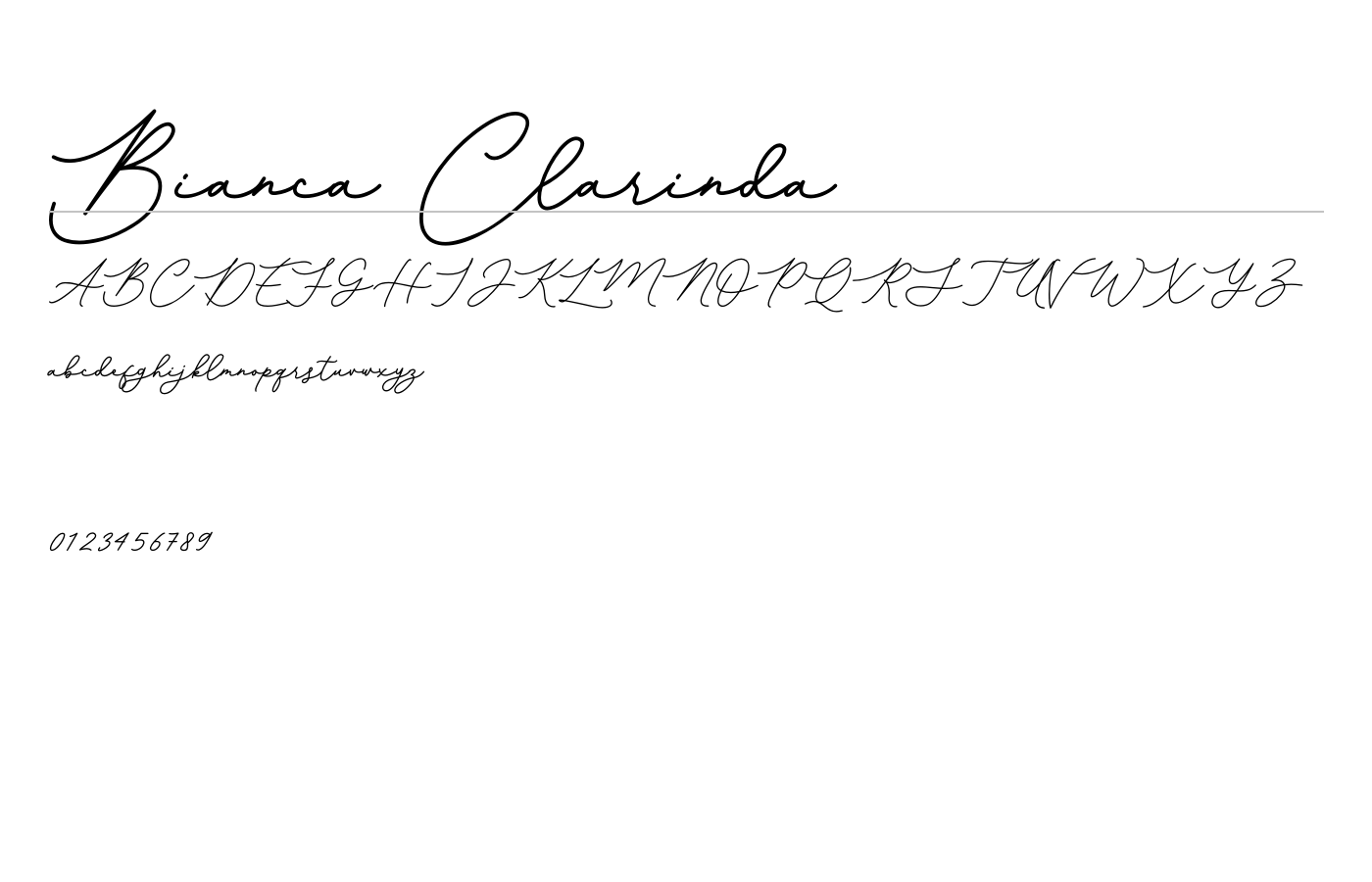
Bianca Clarinda is an elegant and delicate script font with a light, flowing stroke that mimics natural handwriting. Its fine, connected letterforms and refined curves give it a graceful and sophisticated personality, making it ideal for wedding invitations, branding, and any design that seeks a personal, stylish touch. This font works beautifully in headlines and decorative accents where a sense of elegance and subtle charm is desired.
Bianca Clarinda Font
About Bianca Clarinda Font